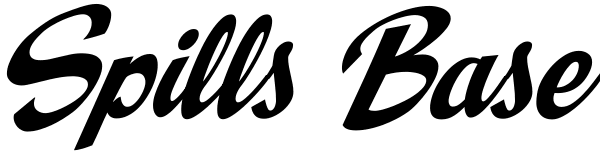
Spills
The infield dirt is raked, the outfield grass is mowed and the baselines chalked. So grab a beer, smother a stadium dog with mustard and relish, take a seat on the bleachers and get ready -- that handsome devil SPILLS is back on the mound and ready...
Spills Base
Spills Infield
Spills Outfield
Spills Pennant
Spills Dugout
Spills Stadium